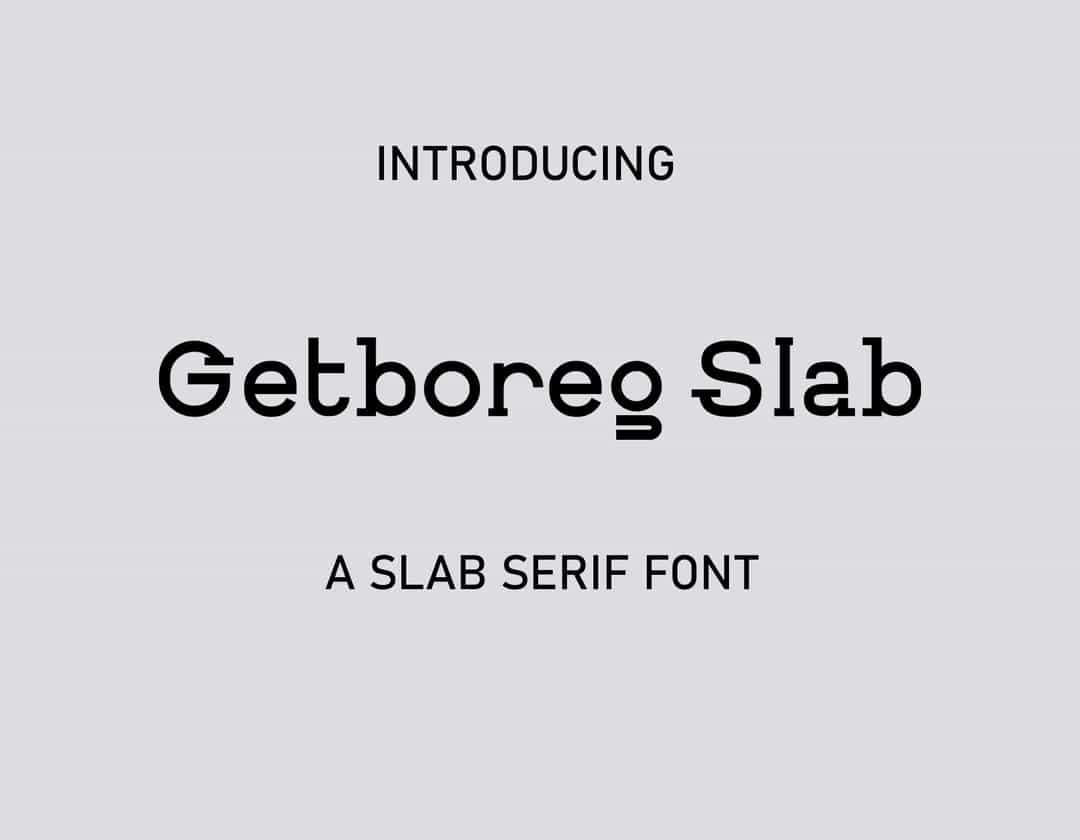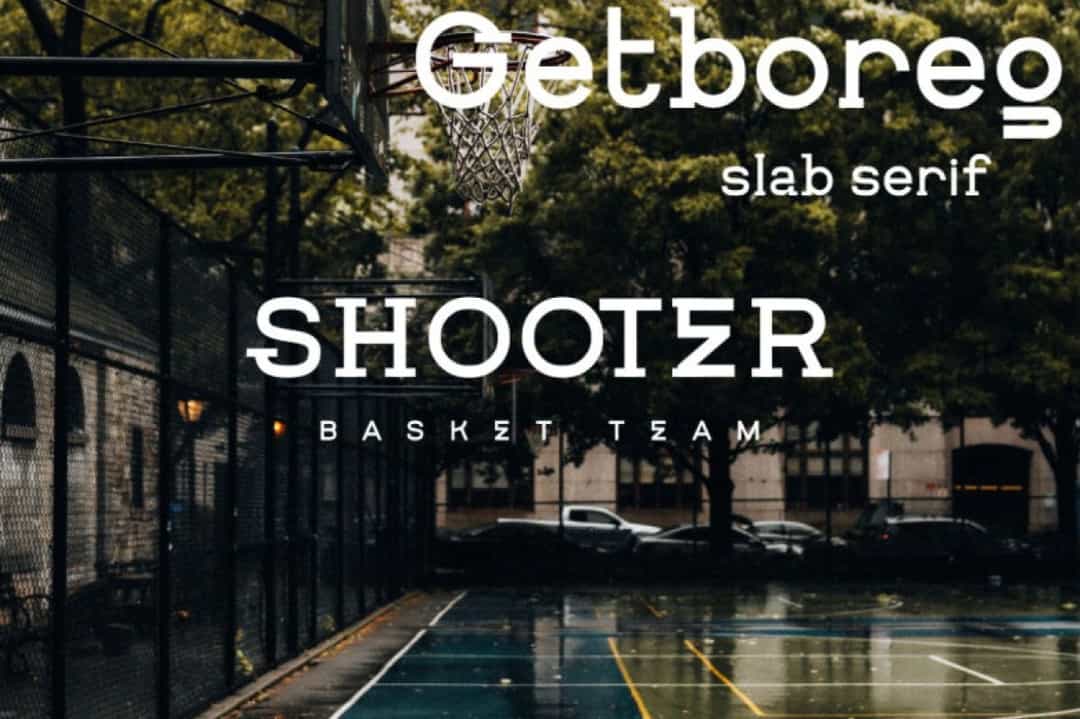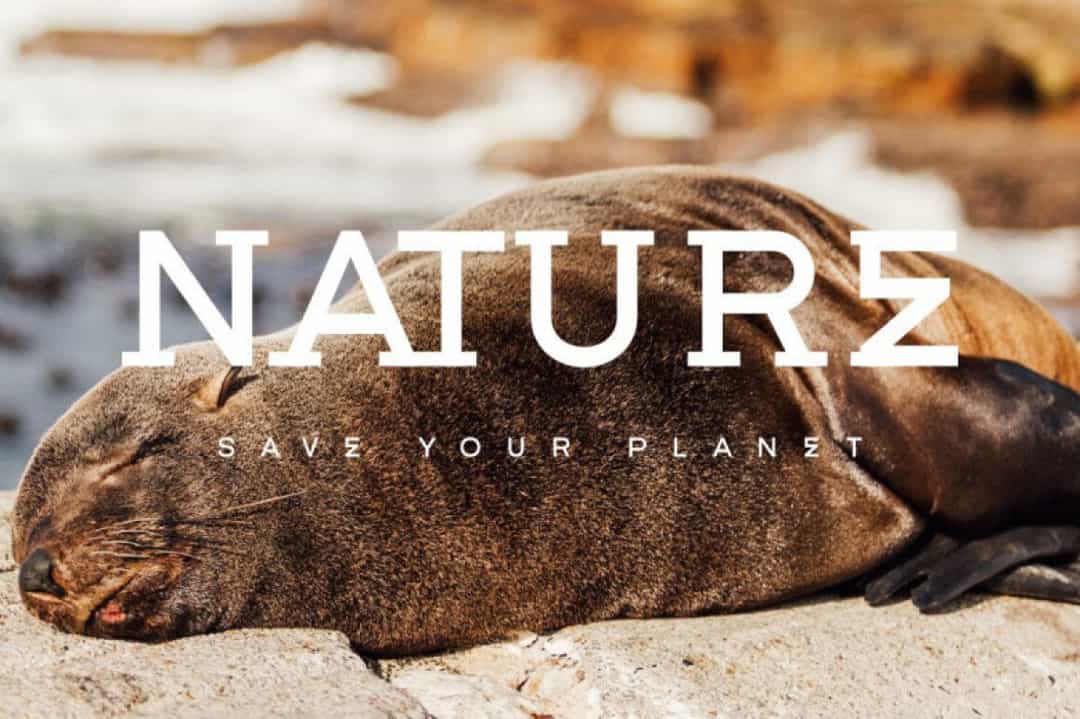
Getboreg Slab Serif Font is an adventure through time and technology, exploring both linguistics and technological progress through its characters’ interactions over generations; each curve and contour revealing writing’s evolution over time and creating an artistic record beyond mere words.